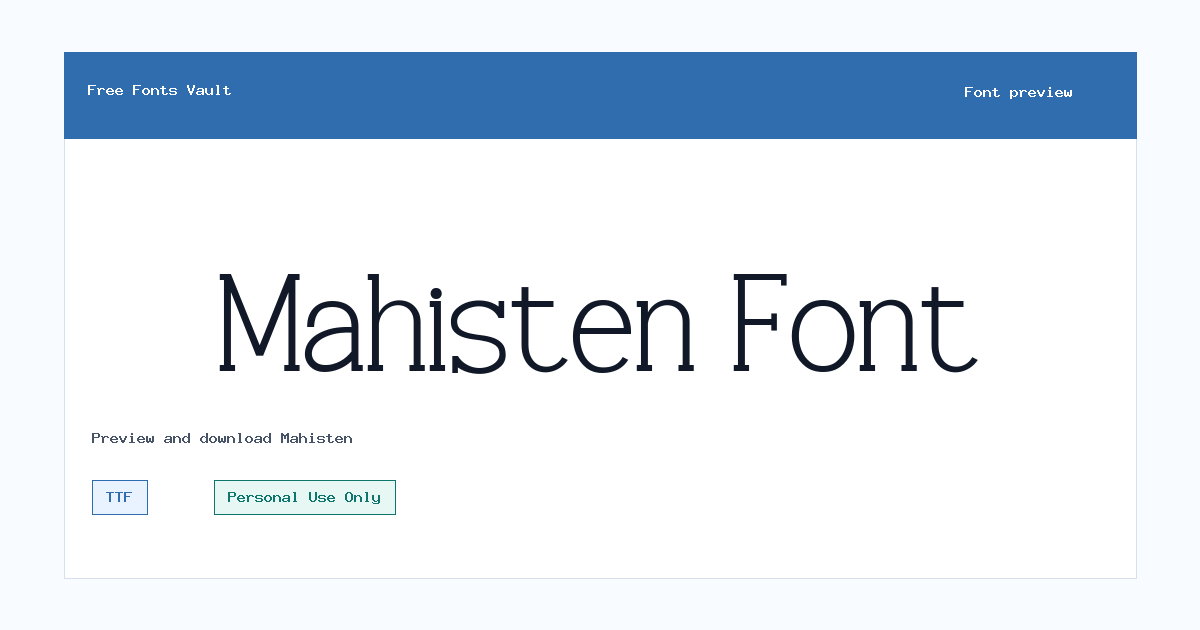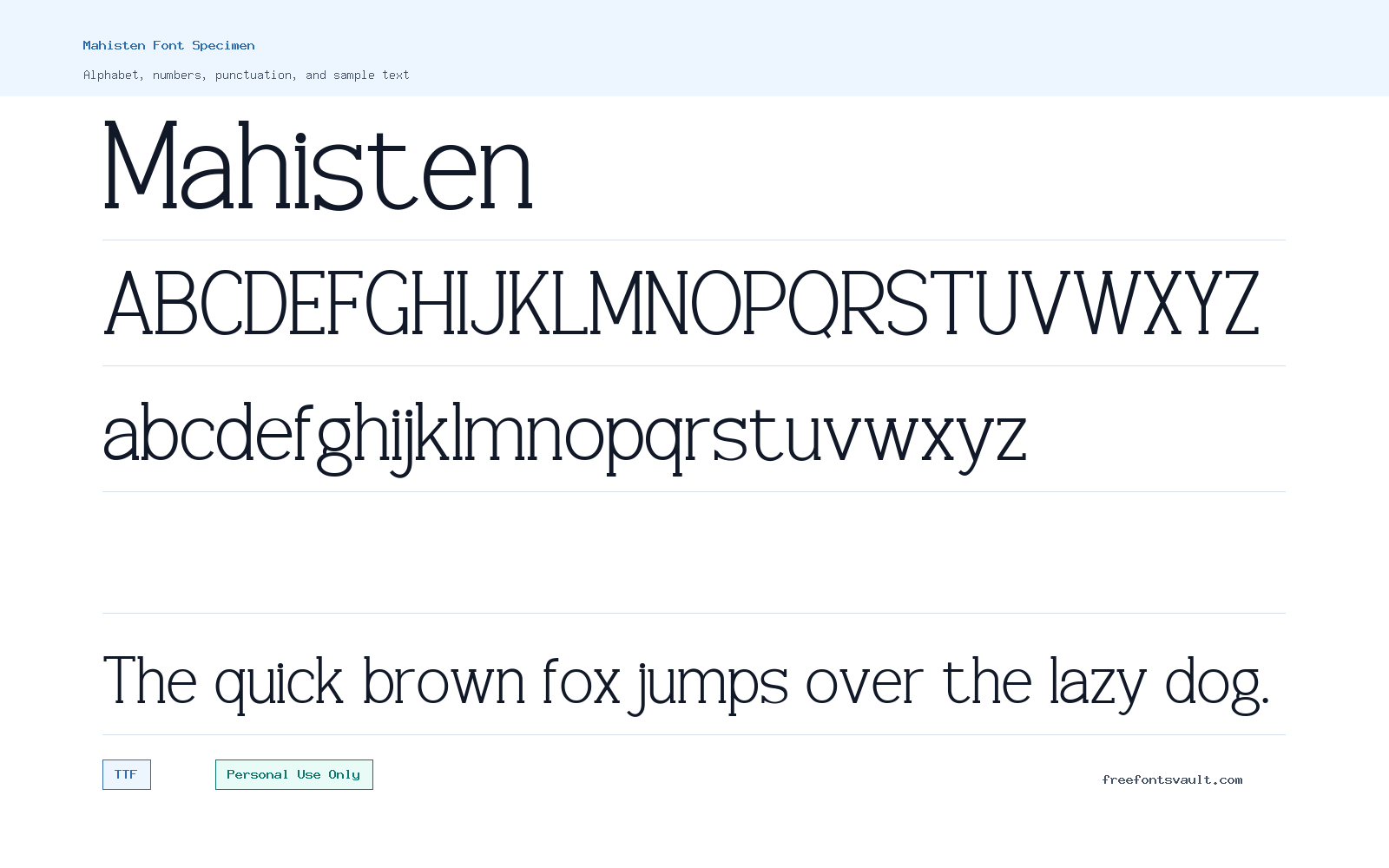
Mahisten
Mahisten is a slab serif font with a regular TTF style, suited for visitors who want a strong display face for personal design tests, mockups, and short text previews.
About Mahisten
Mahisten works best when you need type that feels firm and noticeable without relying on script details or decorative effects. Its slab serif classification suggests sturdy letterforms with more weight at the serifs, making it a practical choice for headlines, poster text, badges, packaging drafts, and title treatments. The family currently has a regular style with normal weight, so it is easiest to judge in straightforward settings such as names, short phrases, headings, and logo-style wordmarks.
Use the preview tool to test Mahisten with the exact words you plan to design around. Slab serif fonts can look strong in large sizes, but spacing and readability can change quickly when the text is long, tightly tracked, or used in small UI areas. Try it first in uppercase, title case, and a few punctuation-heavy lines. If you are building a layout, pair Mahisten with a clean sans serif or a restrained serif for body copy so the display text stays clear and does not compete with paragraph reading.
- Slab serif style suited to bold display text and short headings
- Posters, labels, badges, and social graphics for personal projects
- Logo mockups, title designs, packaging drafts, and short headline previews
For best results, preview Mahisten at larger sizes and keep the wording short. Check spacing around wide letters, numbers, and punctuation before using it in a finished design. For longer text, use Mahisten as the display face and choose a simpler companion font for paragraphs or small captions.
What type of font is Mahisten?
Mahisten is described as a slab serif font. That makes it better suited to display use than long body text.
What should I pair Mahisten with?
Pair it with a clean sans serif or a quiet text serif. Let Mahisten handle the headline or title while the companion font handles longer reading.